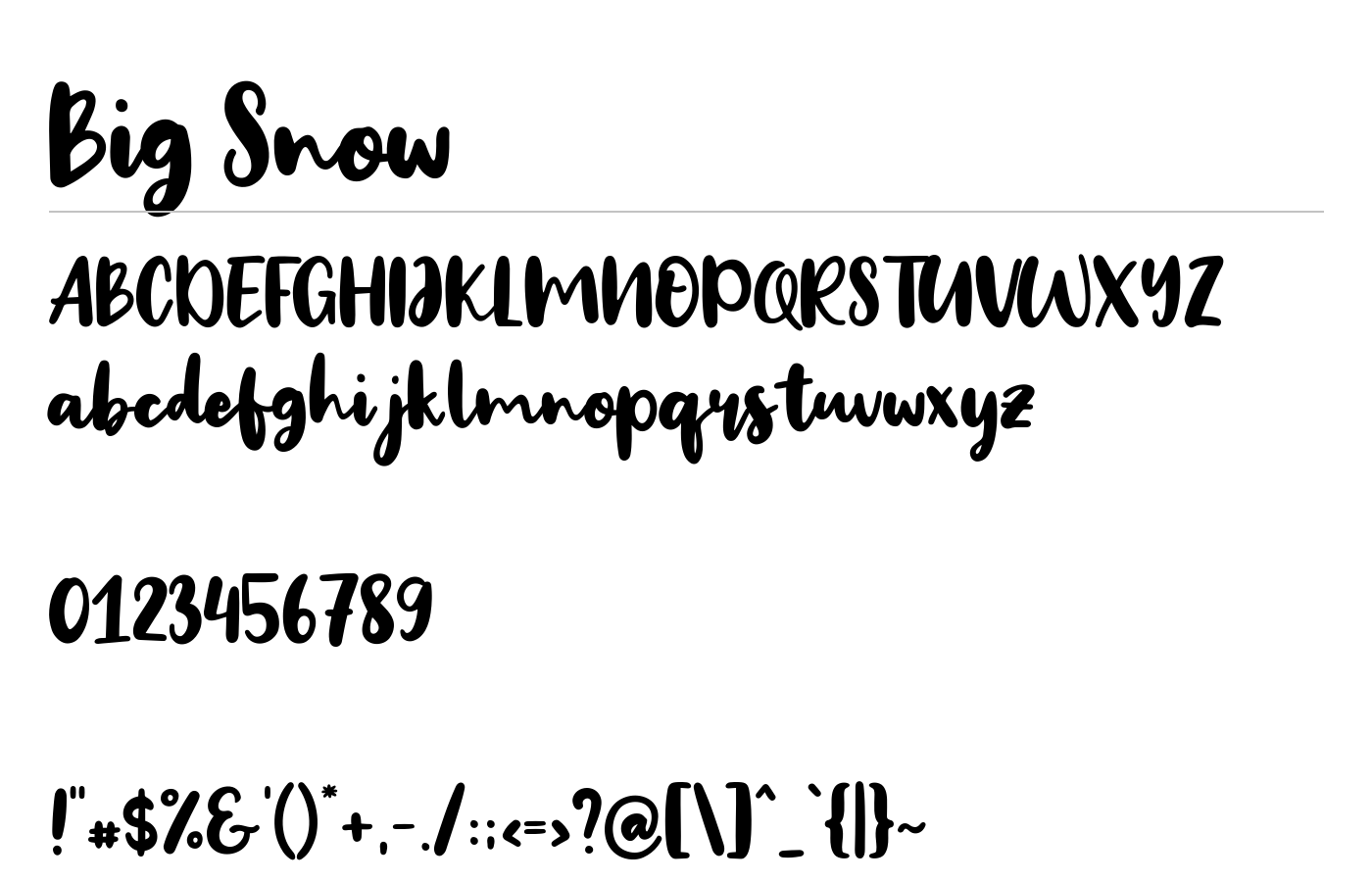
Big Snow is a playful and bold handwritten script font with a lively, casual feel. Its rounded, slightly irregular letterforms and medium weight create a warm, friendly vibe perfect for creative, informal designs like logos, packaging, and fun headlines. This font works well where a personal, approachable touch is desired, bringing a sense of cheer and spontaneity to any project.
Big Snow Font
About Big Snow Font
| Font family | Big Snow Font |